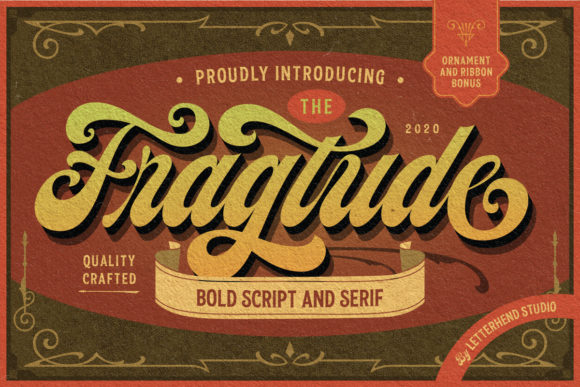
Introducing Fragtude Font, a Masterpiece of Serif and Script Duo
Journey into the realm of timeless elegance with Fragtude Font, a duo font (serif and script) that captivates with its exquisite charm. This font is a testament to the power of classic design, infused with a touch of contemporary flair. Whether you're a seasoned designer or just starting out, Fragtude is your gateway to creating designs that leave a lasting impression.
Immerse yourself in the world of old books, where words dance gracefully on paper. Fragtude's serif font evokes the allure of antique literature, inviting your readers to embark on a literary voyage like never before. Its script counterpart adds a touch of whimsy and intrigue, making your designs both visually captivating and emotionally resonant.
With Fragtude, you'll have the power to transform ordinary words into works of art. Its graceful curves and intricate details add a touch of sophistication to any project, whether it's a wedding invitation, a vintage poster, or a heartfelt letter. Let your imagination soar as you explore the endless possibilities that Fragtude offers.
Elevate Your Designs to New Heights
Fragtude is not just a font; it's an experience. Dive into a world where creativity knows no bounds, where your designs take on a life of their own. Whether you're crafting a timeless logo, a captivating social media post, or an unforgettable branding campaign, Fragtude is your secret weapon. Watch as your designs come alive, captivating audiences and leaving them in awe.
Capture Hearts with Every Stroke
Words have the power to move mountains, and Fragtude is your conduit to unlocking that power. With its evocative charm and timeless appeal, this font will touch the hearts of your readers, creating an emotional connection that goes beyond words. Whether you're crafting a heartfelt message, a poignant poem, or a captivating story, Fragtude will lend its voice to your words, amplifying their impact and leaving an indelible mark on your audience.
A World of Possibilities Awaits
Fragtude is more than just a font; it's a gateway to a world of endless possibilities. Explore the realms of creativity, where your imagination is the only limit. Whether you're a graphic designer, a web developer, a writer, or simply someone with a passion for beautiful typography, Fragtude is your key to unlocking your creative potential. Let your dreams take flight as you delve into the world of Fragtude, a font that will inspire you, captivate you, and transform your designs into masterpieces.